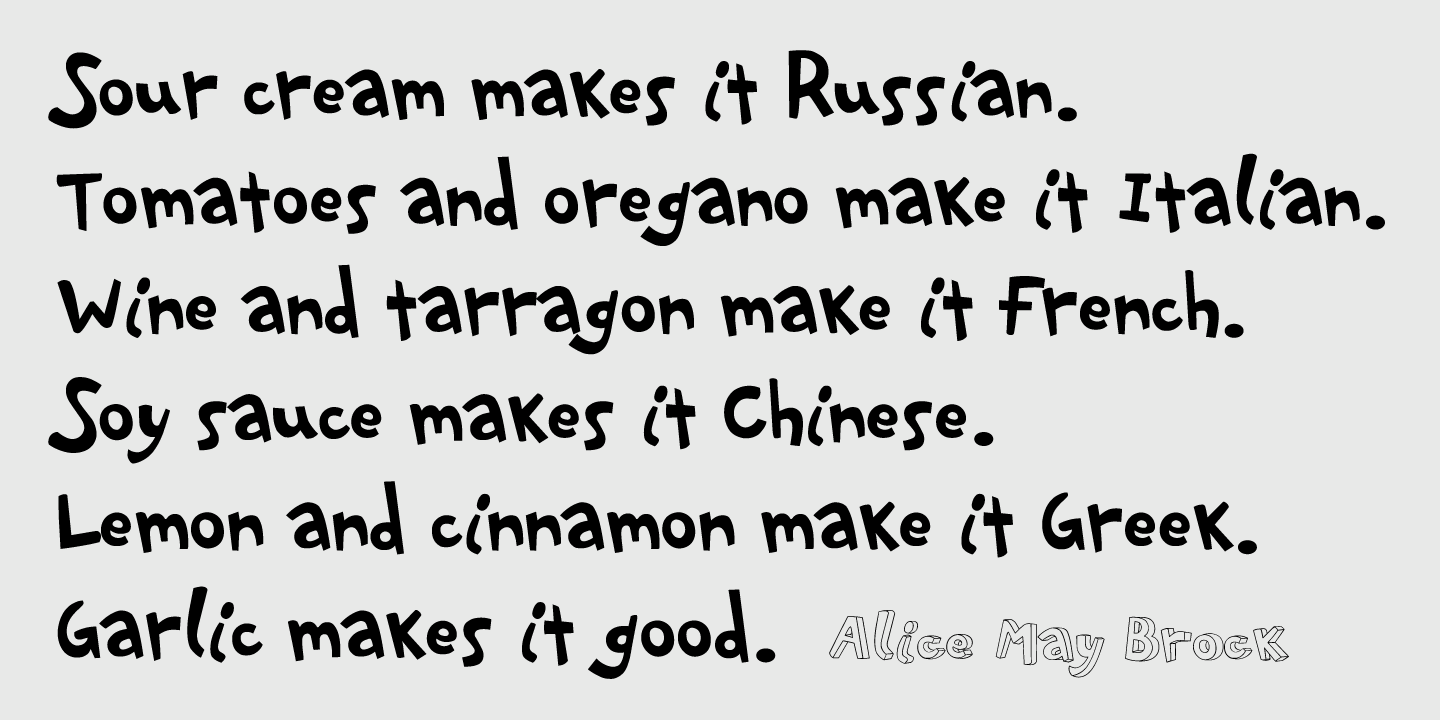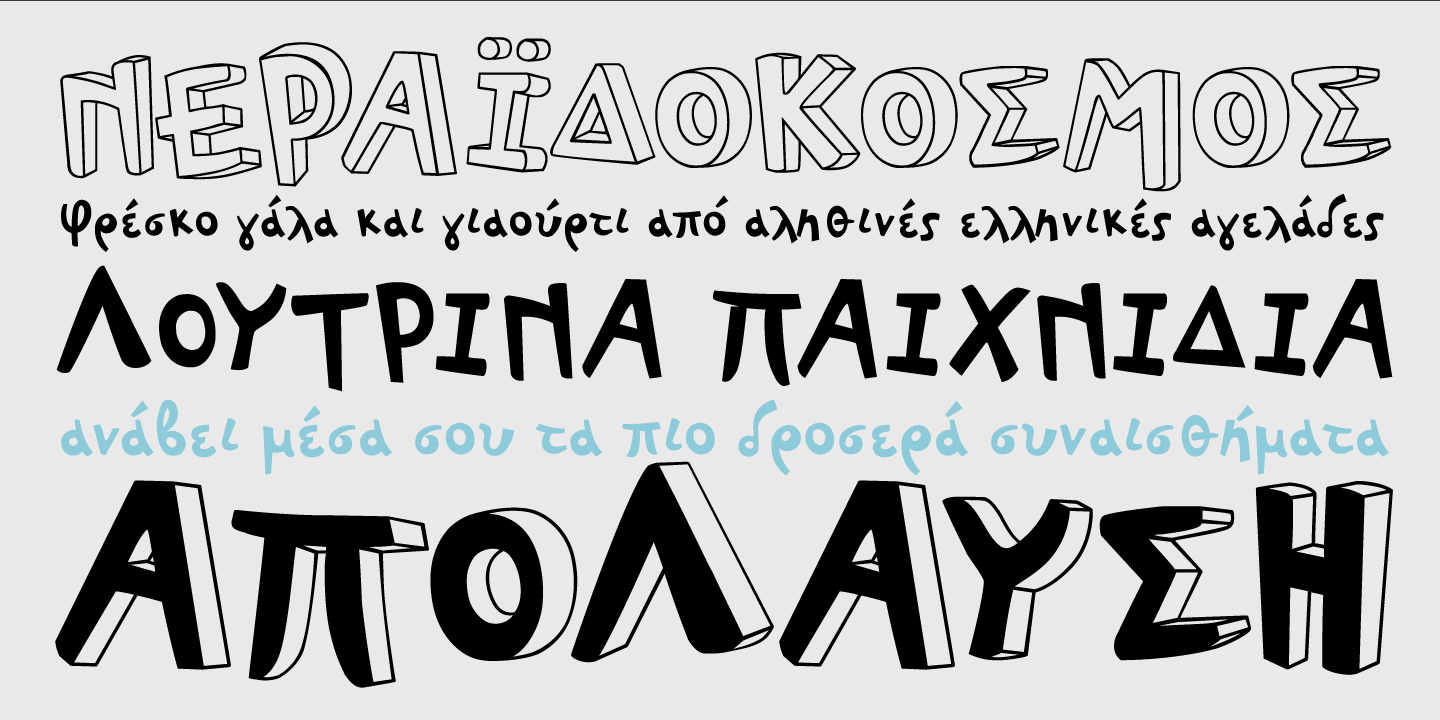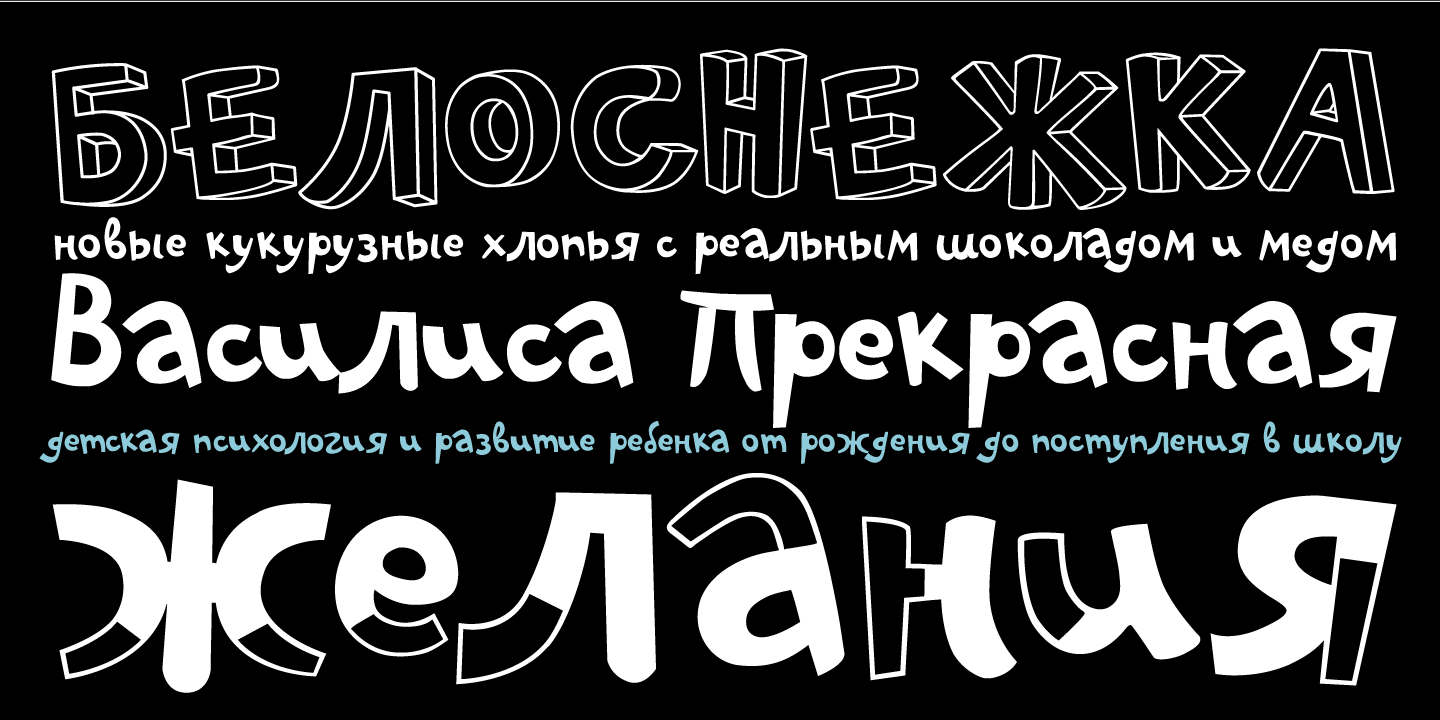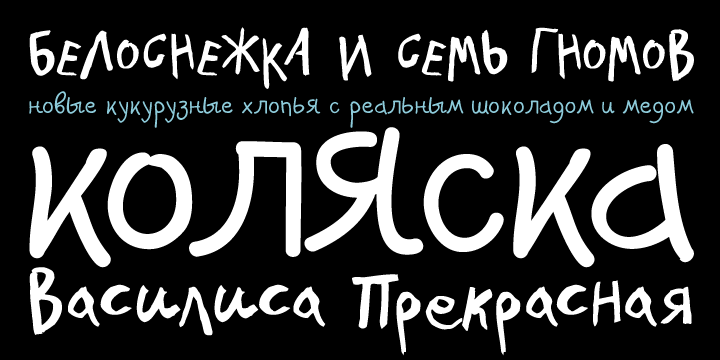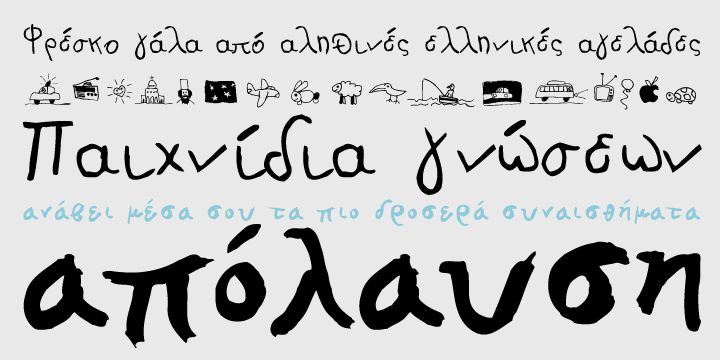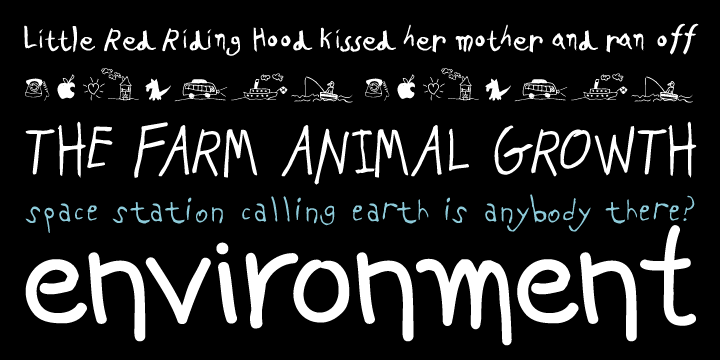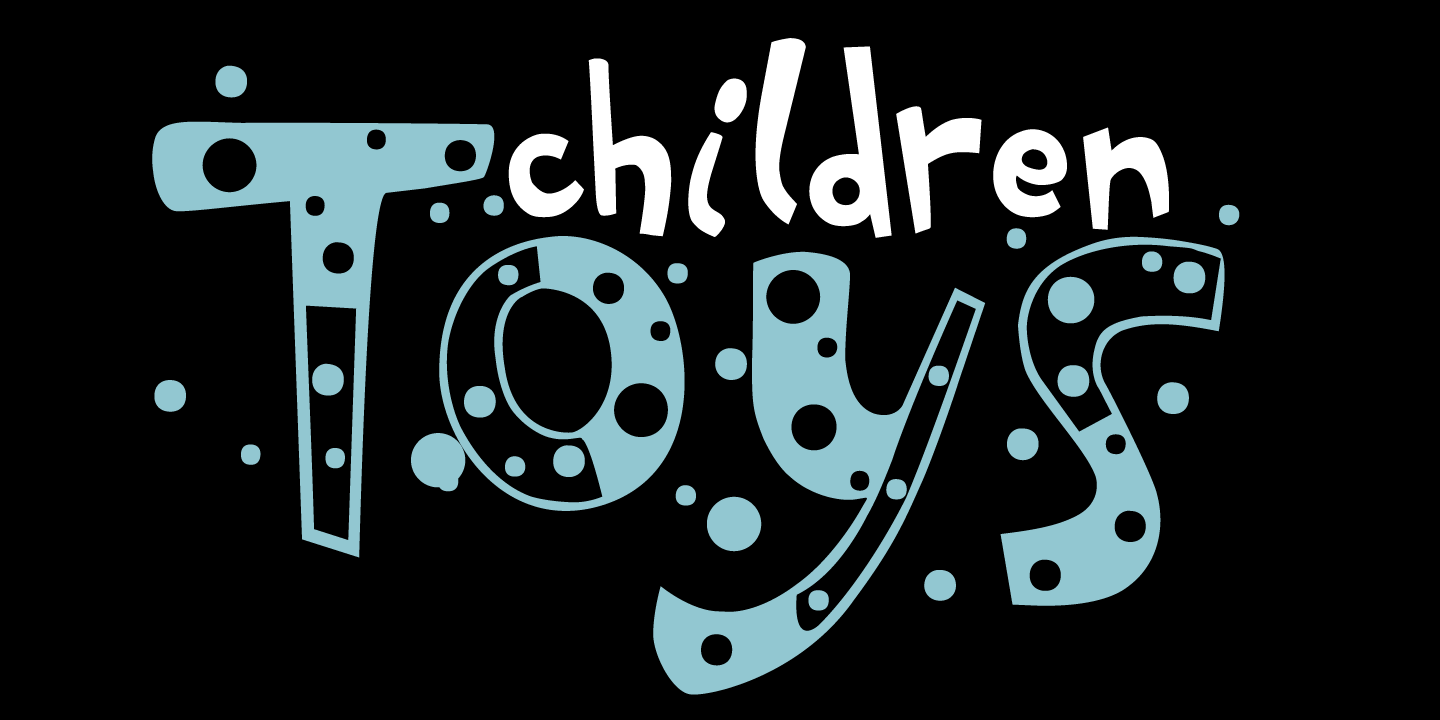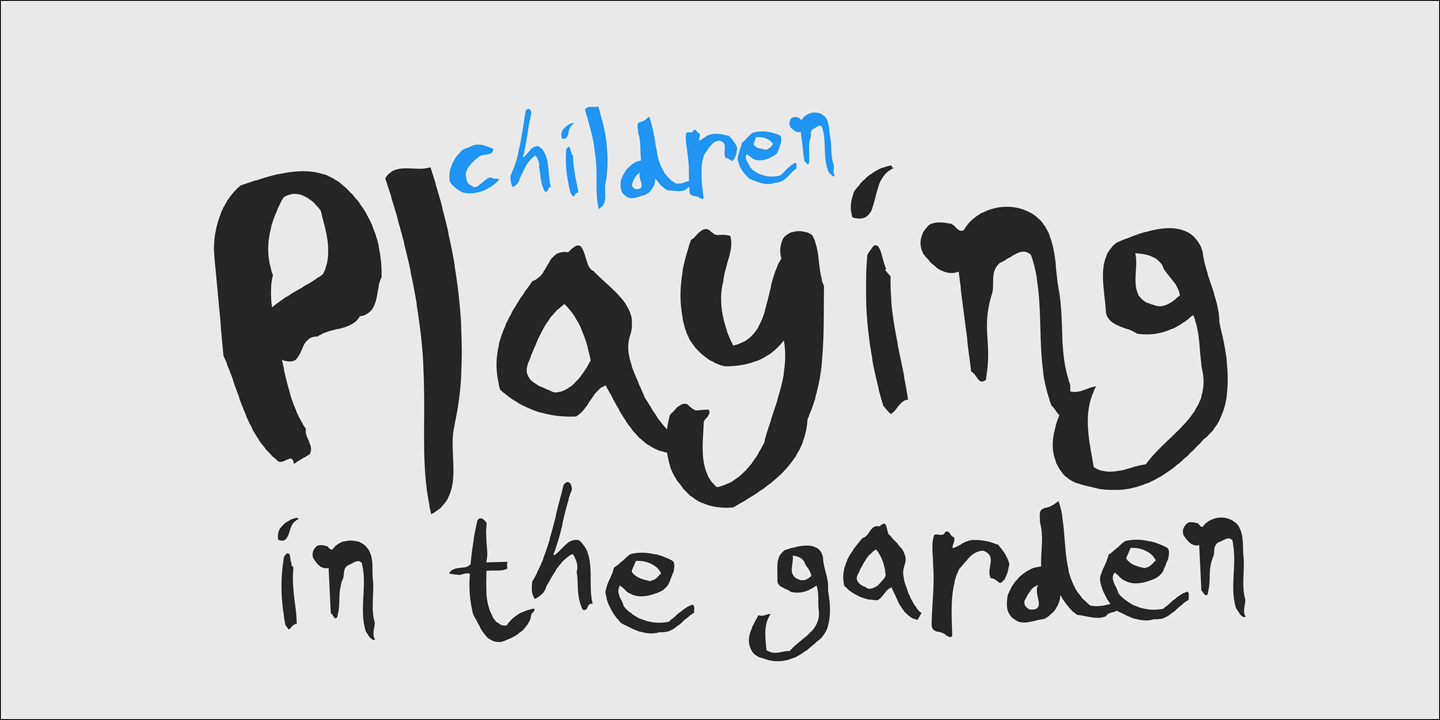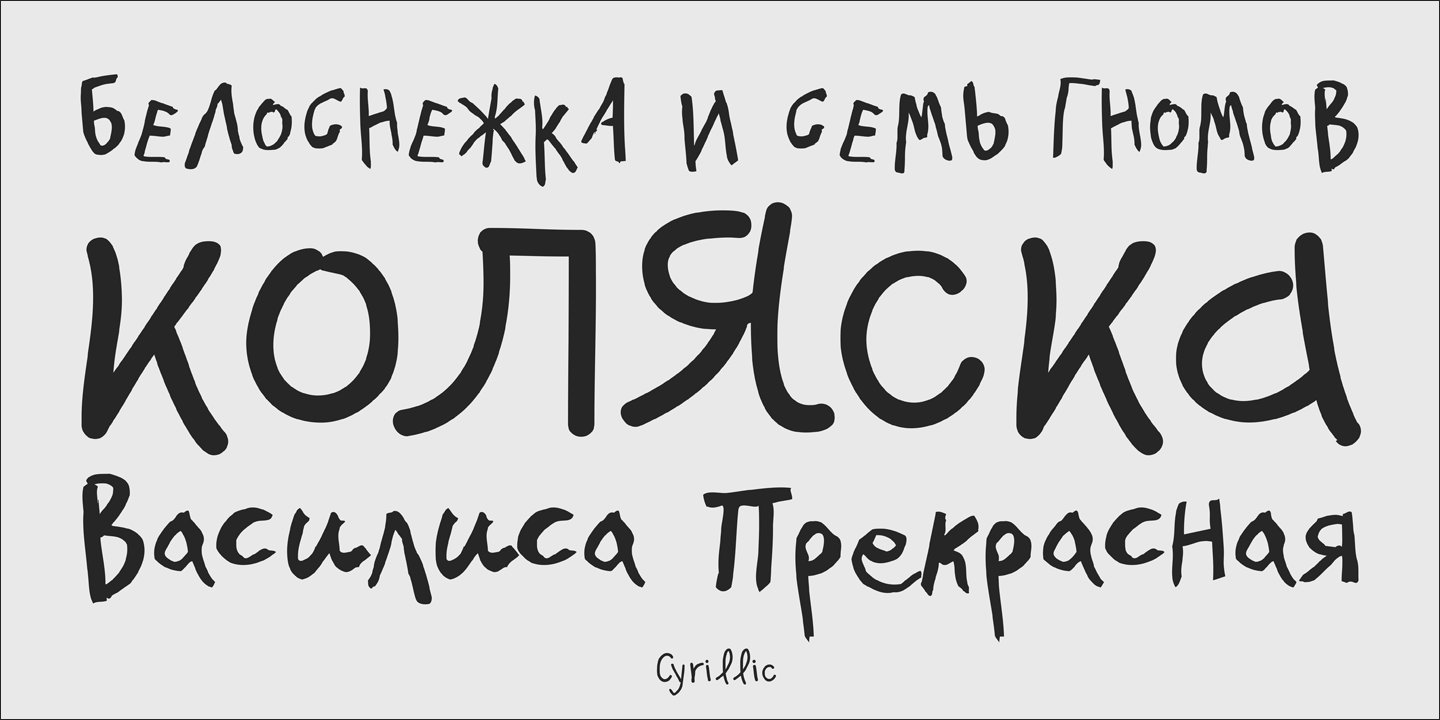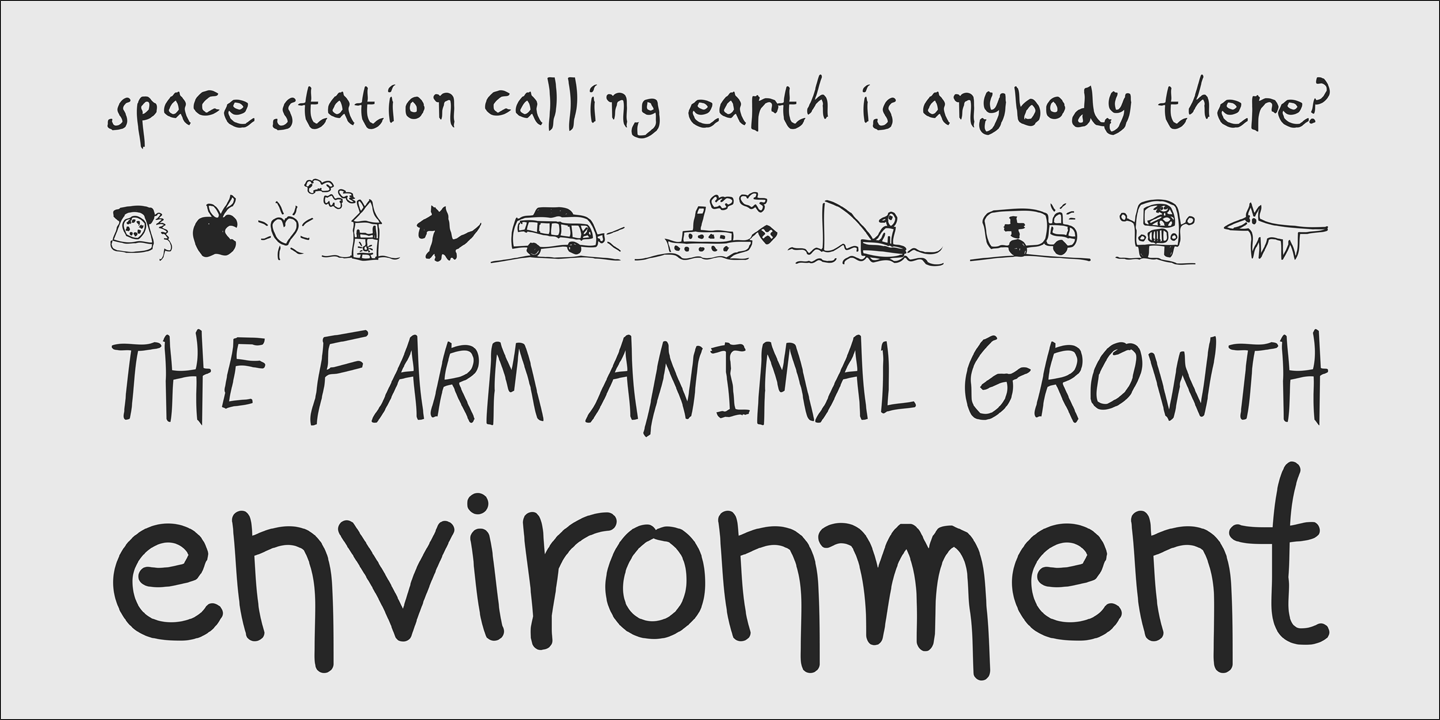
Alexandros Papalexis studied graphic design and typography at the National Design School (TEI) of Athens. He started designing typefaces when he felt the need to create customized type for his own projects. PF Kids Pro is his most popular typeface. It has been used almost on everything related to children such as books, toys, food, clothing, magazines. His other typefaces include PF Freescript, PF Junior and PF Playskool.